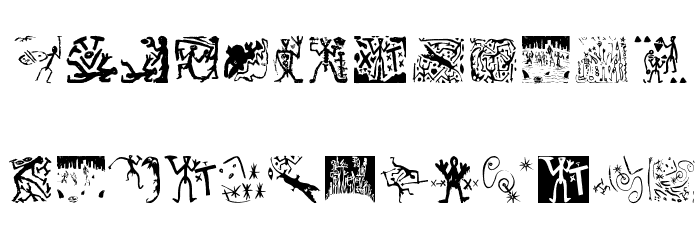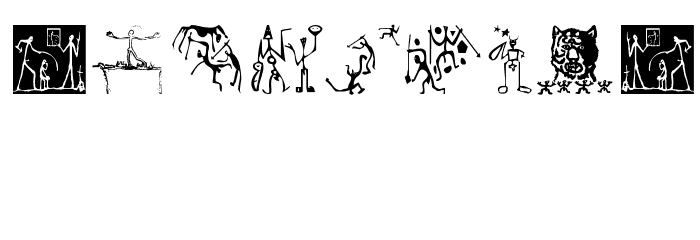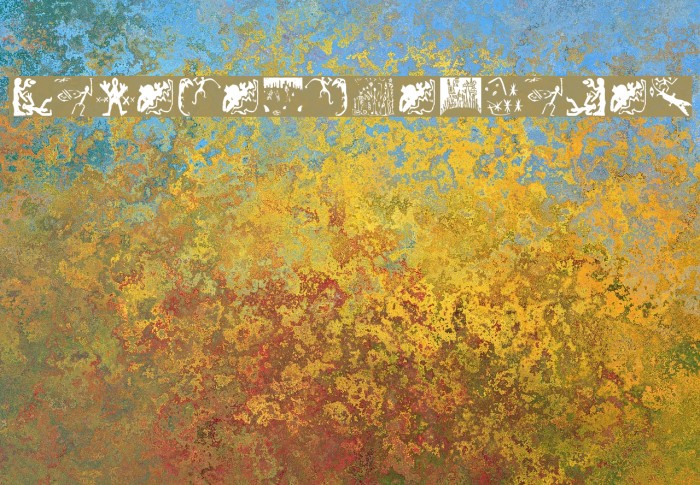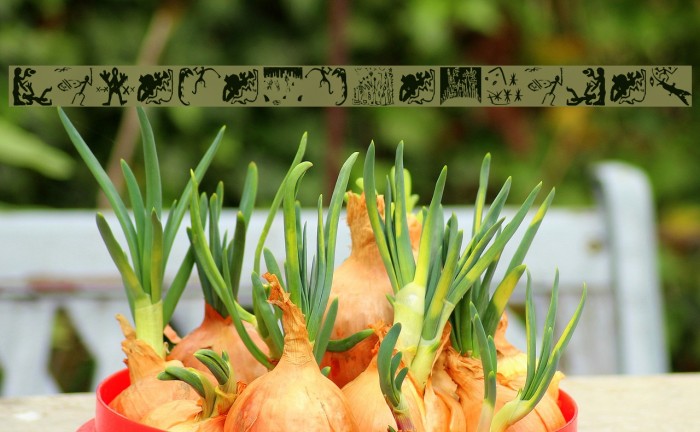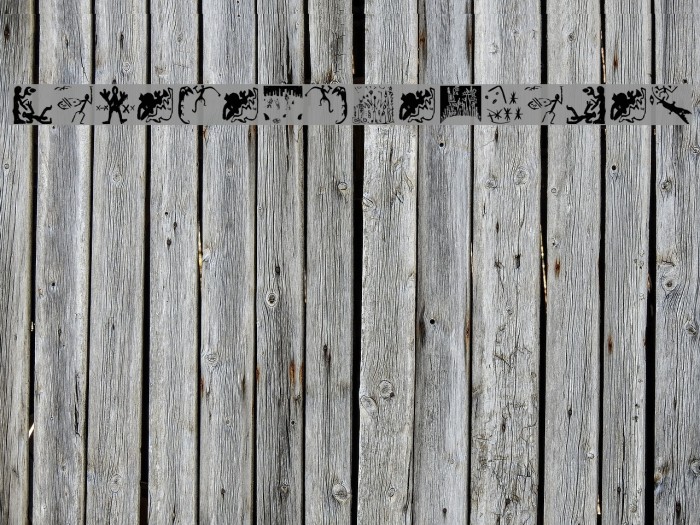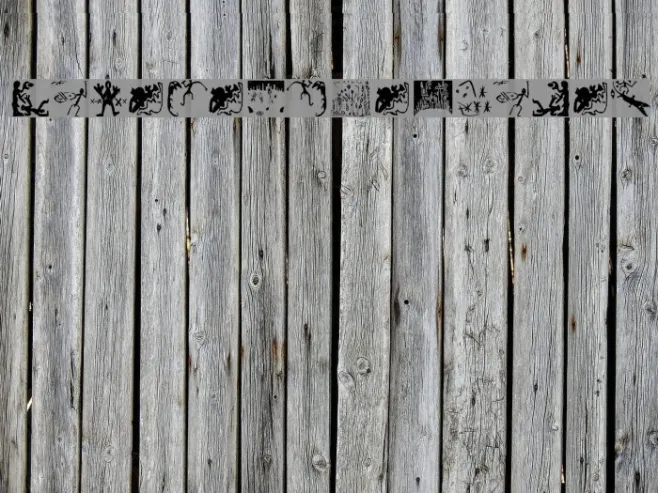
CavePeopleTraces Font
This unique and artistic font draws inspiration from ancient cave paintings, featuring intricate and abstract depictions of human figures, animals, and symbols. Each character is a small piece of art, showcasing dynamic and expressive forms that resemble prehistoric art. The font captures the essence of storytelling through visuals, with each letter and symbol conveying a sense of movement and history. The style is bold and decorative, with a strong emphasis on visual impact and creativity. The characters are designed with a high level of detail, making them suitable for projects that require a distinctive and artistic touch.
An artistic font inspired by ancient cave paintings, featuring expressive and detailed characters.
- Proposed Projects: Ideal for artistic projects, historical presentations, themed events, or creative branding that seeks a unique and ancient aesthetic.
- Use Case: Logos, Posters, Artistic Projects